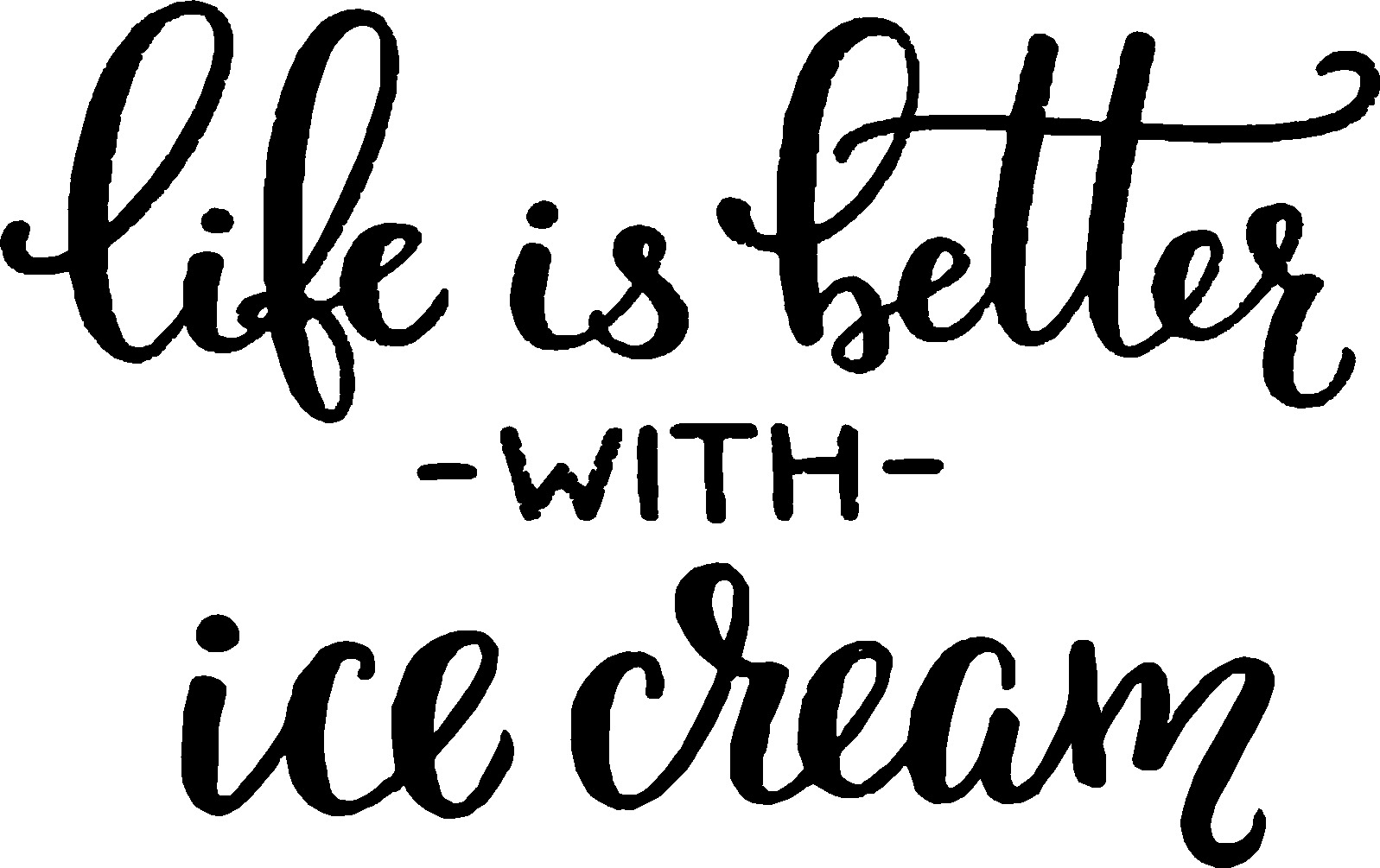
Hand lettered, and aggressively mediocre at that. It would appear that someone was attempting to duplicate the script used on seemingly everything at Hobby Lobby.